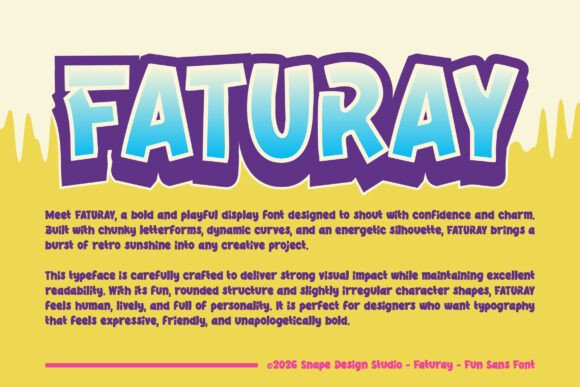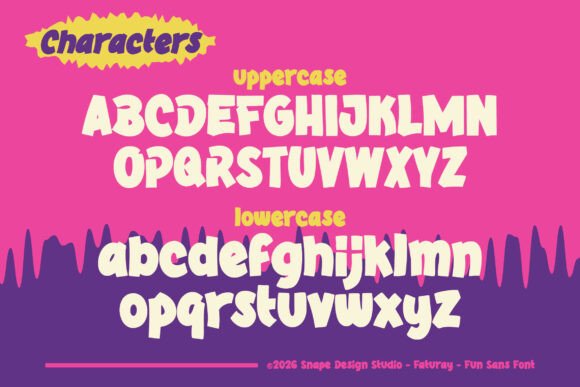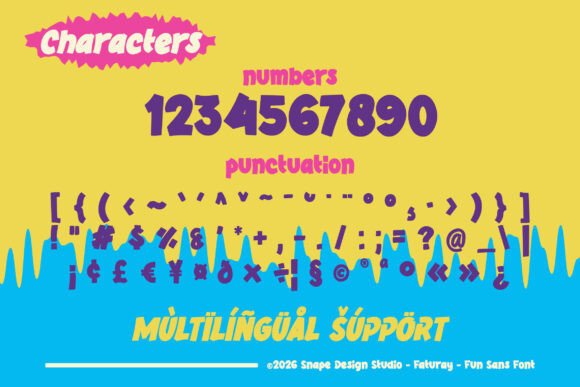
Introduction to Faturay Font
Meet FATURAY, a bold and playful display font designed to shout with confidence and charm.
Built with chunky letterforms, dynamic curves, and an energetic silhouette, FATURAY brings a burst of retro sunshine into any creative project This typeface is carefully crafted to deliver strong visual impact while maintaining excellent readability.
Key Features of Faturay Font
Why Choose Faturay Font?
Faturay Font offers exceptional quality and versatility, making it a valuable addition to your design toolkit. Whether you’re creating for personal projects or commercial use, Faturay Font delivers professional results.